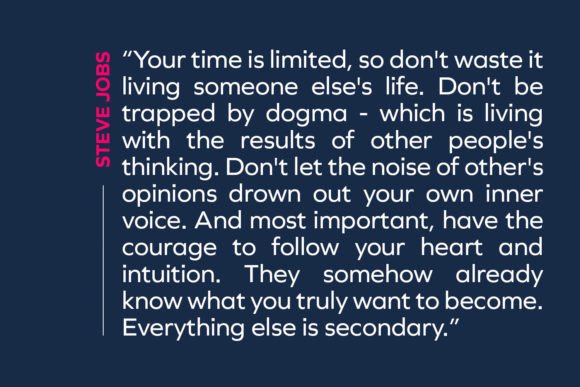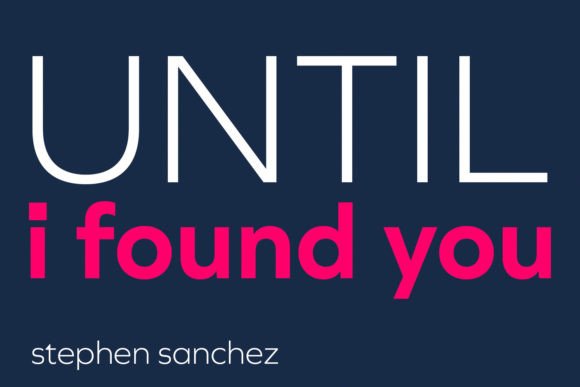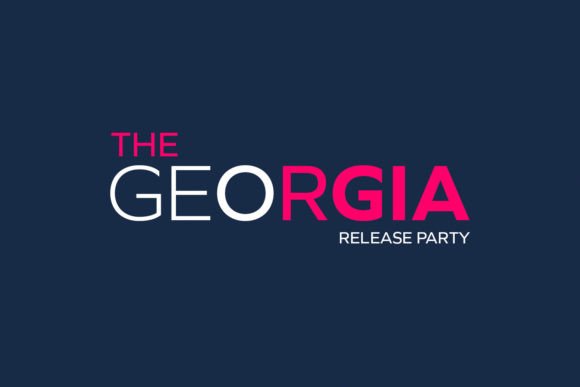
Introduction to Mathelo Font
Mathelo is a modern and cool sans serif font.
It has beautiful and well-balanced characters and as a result, it matches a wide pool of designs Add it to your most creative ideas and notice how it makes them come alive.
Why Choose Mathelo Font?
Mathelo Font offers exceptional quality and versatility, making it a valuable addition to your design toolkit. Whether you’re creating for personal projects or commercial use, Mathelo Font delivers professional results.